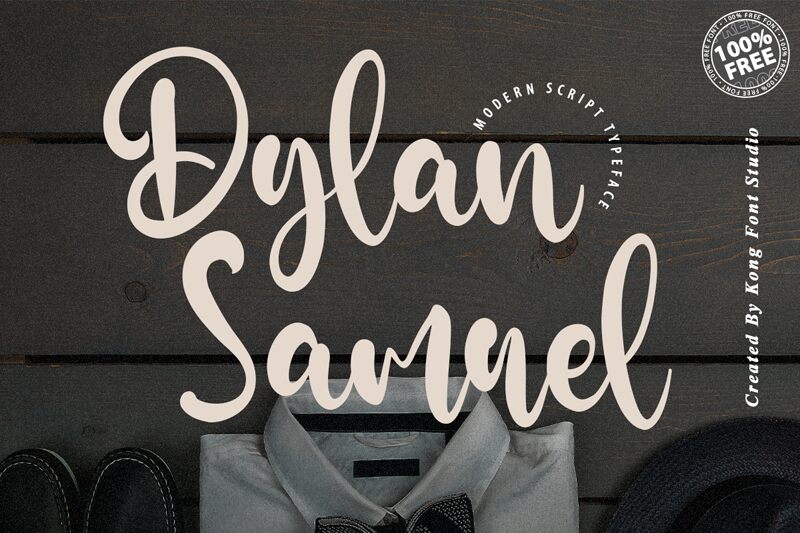
Dylan Samuel
Dylan Samuel, a modern script font designed by Kong Font, is the perfect addition to any creative project seeking elegance and sophistication. Its fluid strokes and delicate curves exude a sense of refinement, making it the ideal choice for wedding invitations, high-end branding materials or even luxury fashion magazines. The semi-bold font possesses a unique character that's both stylish and expressive, evoking an air of exclusivity and class. Dylan Samuel's versatility makes it suitable for various projects where elegance is essential - be it in digital or print media. With its exceptional readability, Dylan Samuel will surely elevate your project to new heights.